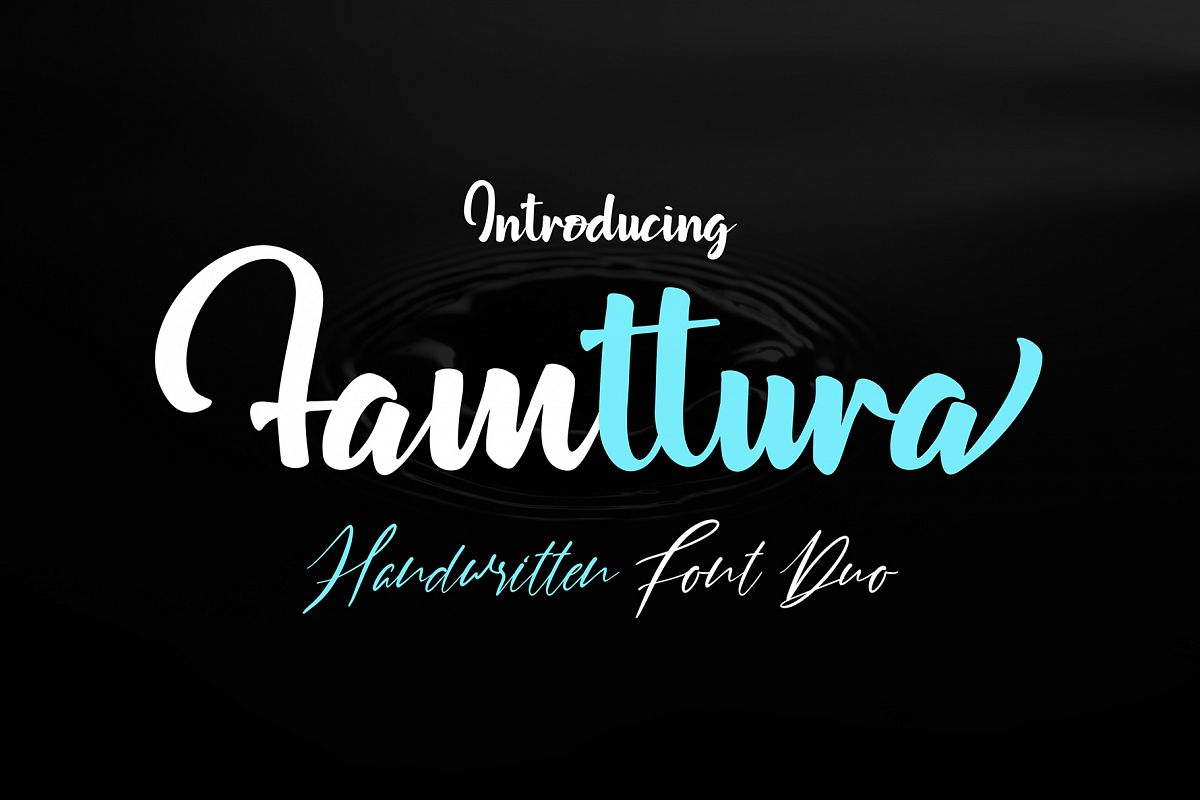
Famttura Font Duo
Famttura Font Duo font with new style, this font will perfect for many different project ex: quotes, logo, blog header, poster, banding, fashion, apparel, letter, invitation, stationery, etc...